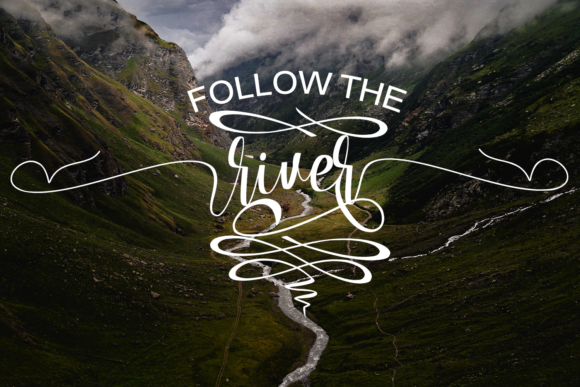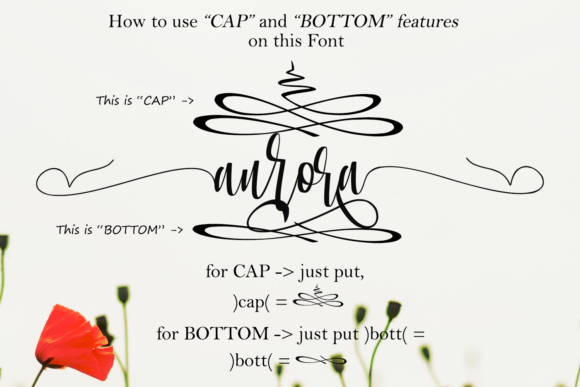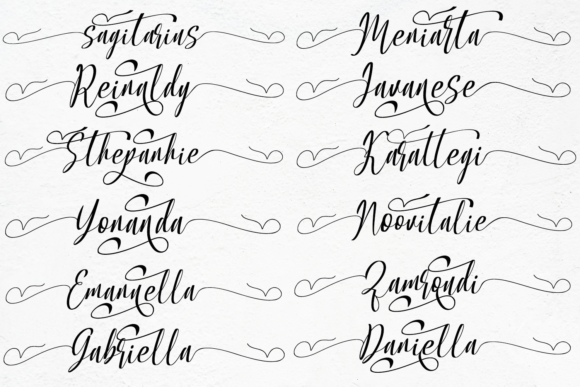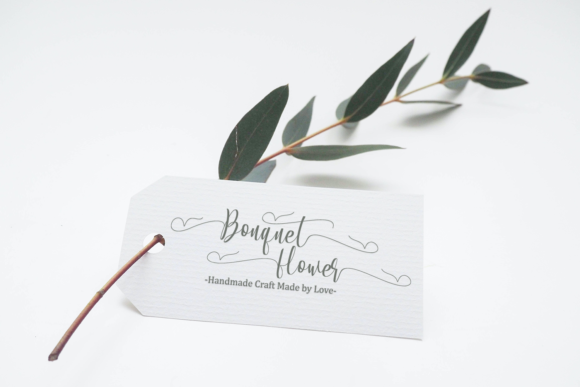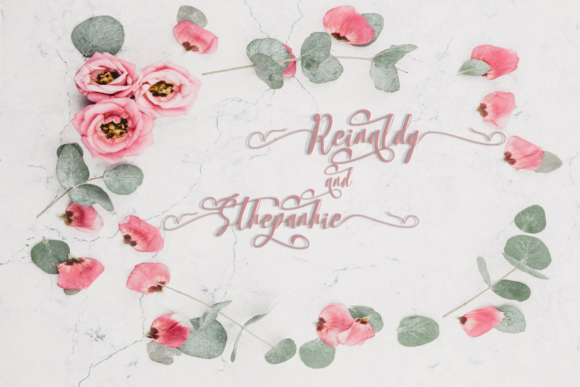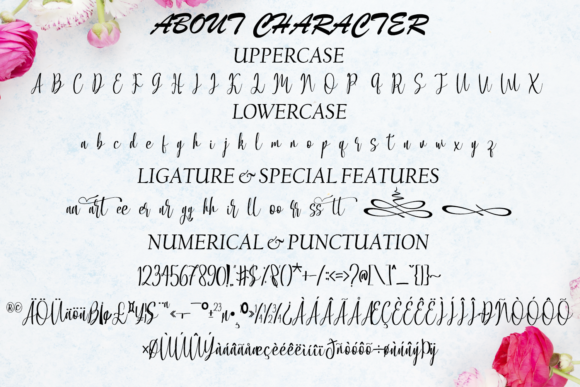
Introducing Allacarte Font: Elevate Your Designs with Elegance and Charm
In the world of typography, few fonts manage to strike a balance between charm and elegance as effortlessly as Allacarte. This beautiful, handwritten font is perfect for designers and crafters looking to add a touch of sophistication and personality to their projects. Whether you’re working on wedding invitations, thank you cards, quotes, greeting cards, logos, or business cards, Allacarte feels equally charming and elegant, making it an excellent choice for a wide range of design applications.
What Makes Allacarte Font Stand Out?
Allacarte’s appeal lies in its unique combination of characteristics that set it apart from other fonts. Here are some of the key features that make Allacarte a standout addition to your font collection:
- Varying Baseline: Allacarte features a varying baseline that adds a natural, handwritten feel to your designs. This subtle variation mimics the way we write by hand, giving your text a more organic and personal touch.
- Smooth Lines: The font boasts smooth, flowing lines that contribute to its elegant appearance. These smooth lines ensure that your designs look refined and polished, making them perfect for projects that require a high level of sophistication.
- Gorgeous Glyphs: Allacarte comes with a rich set of glyphs that allow you to add more detail and personality to your designs. These glyphs can be used to create beautiful, intricate patterns and flourishes that enhance the overall aesthetic of your project.
- Stunning Alternates: In addition to its standard characters, Allacarte also includes stunning alternate glyphs. These alternates provide you with more options for customizing your text, allowing you to create unique and varied designs that stand out.
Allacarte font is PUA (Private Use Area) encoded, which means you can access all of its glyphs and swashes with ease. PUA encoding allows you to use the font’s extended character set, including the gorgeous glyphs and stunning alternates, without the need for additional software or complicated workarounds. This feature makes it simple to incorporate the full range of Allacarte’s design elements into your projects, giving you more creative freedom and flexibility.
Allacarte’s versatility makes it suitable for a wide range of design applications. Here are some of the projects where Allacarte can truly shine:
- Wedding Invitations: Add a touch of romance and elegance to your wedding invitations with Allacarte. Its charming and sophisticated appearance makes it perfect for formal wedding announcements.
- Thank You Cards: Express your gratitude in style with beautifully designed thank you cards featuring Allacarte. The font’s elegant lines and gorgeous glyphs make it ideal for conveying your appreciation.
- Quotes and Greeting Cards: Allacarte’s smooth lines and stunning alternates bring quotes and greeting cards to life. Use it to create inspirational quotes, birthday cards, or any other type of card that requires a personal touch.
- Logos and Business Cards: For businesses looking to stand out, Allacarte offers a unique and memorable typographic solution. Its elegant appearance makes it suitable for logos, business cards, and other corporate materials.
Allacarte font is a beautiful, elegant, and charming handwritten font that can elevate your designs to new heights. With its varying baseline, smooth lines, gorgeous glyphs, and stunning alternates, Allacarte offers a wide range of creative possibilities. Its PUA encoding ensures easy access to all its design elements, making it a practical choice for designers and crafters. Whether you’re working on wedding invitations, thank you cards, quotes, greeting cards, logos, or business cards, Allacarte is an excellent choice for adding a touch of sophistication and personality to your projects.